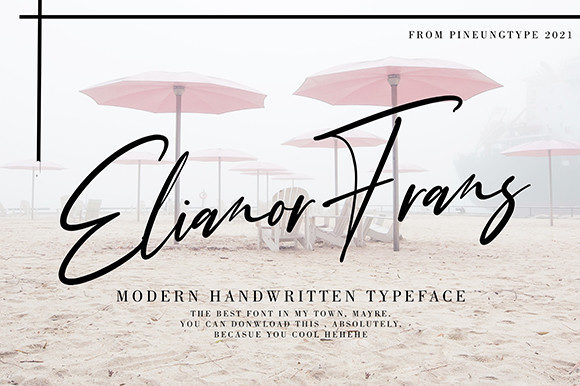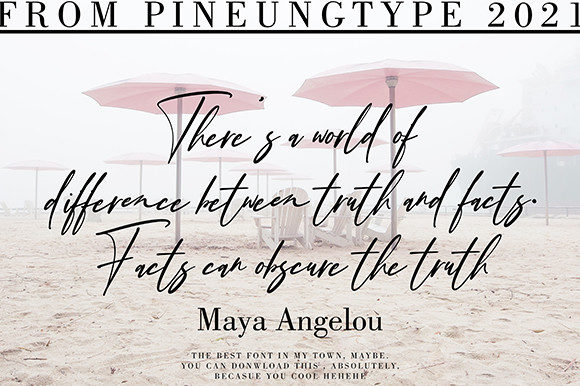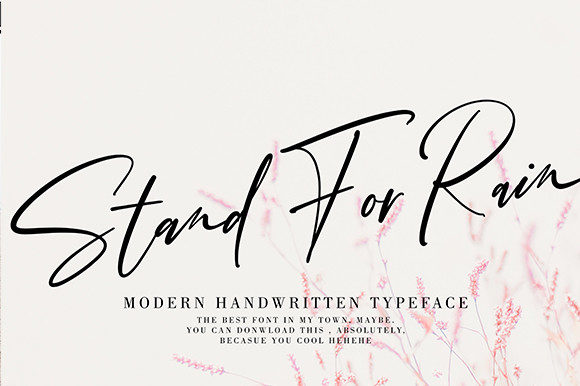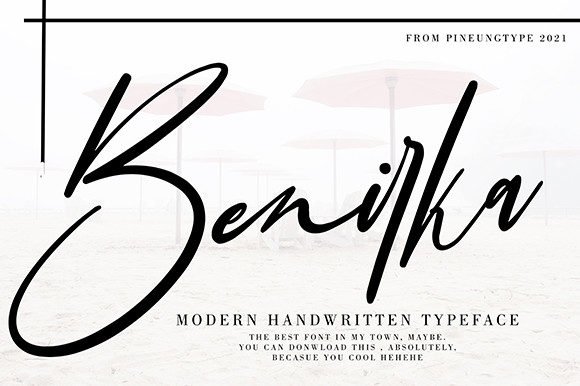
Introduction to Benirka Font
Benirka is an asymmetrical and fashionable script font.
👤 Author Pineungtype & Missinklab
This font is PUA encoded which means you can access all of the glyphs and swashes with ease Fall in love with its incredibly versatile style and use it to create spectacular designs.
Key Features of Benirka Font
Why Choose Benirka Font?
Benirka Font offers exceptional quality and versatility, making it a valuable addition to your design toolkit. Whether you’re creating for personal projects or commercial use, Benirka Font delivers professional results.